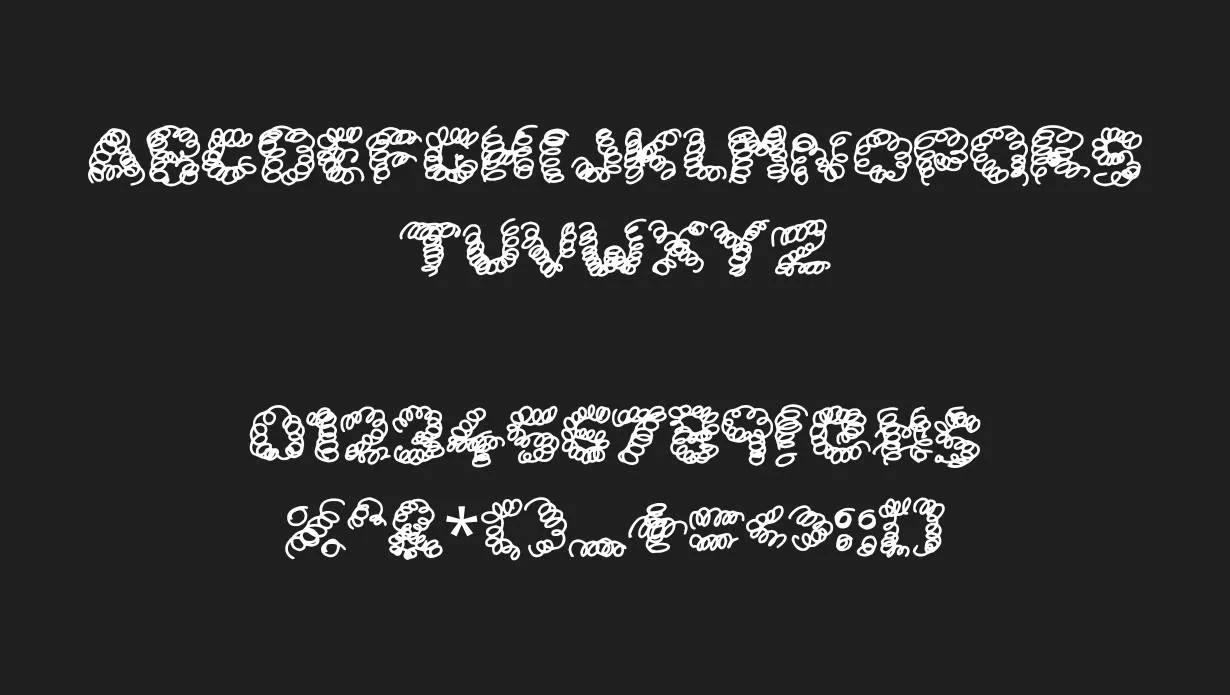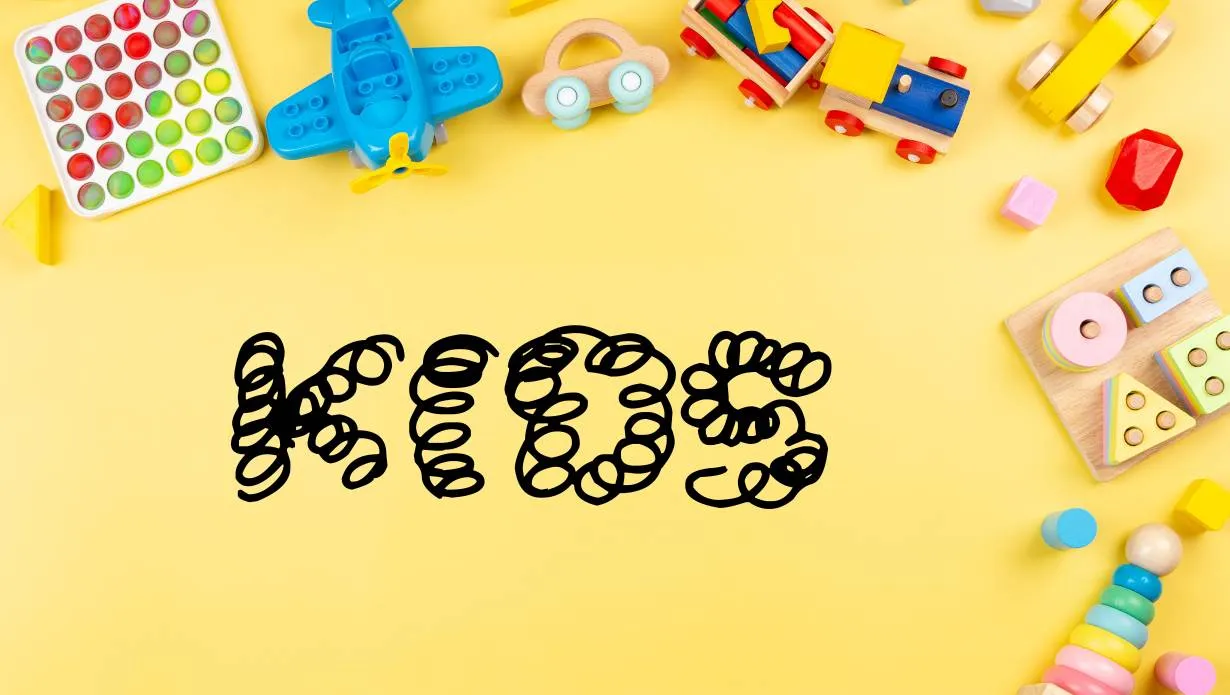
Spring Jokes Font has unique characters. The characters of this typeface are perfect for various types of designs. This typeface comes from the fancy font family. It was first released on March 13, 2018.
You can pair this creative typeface with discord font to give a unique texture to your design project. This typeface supports different languages like Latin, English, and Greek.
| Designer | Darrell Flood |